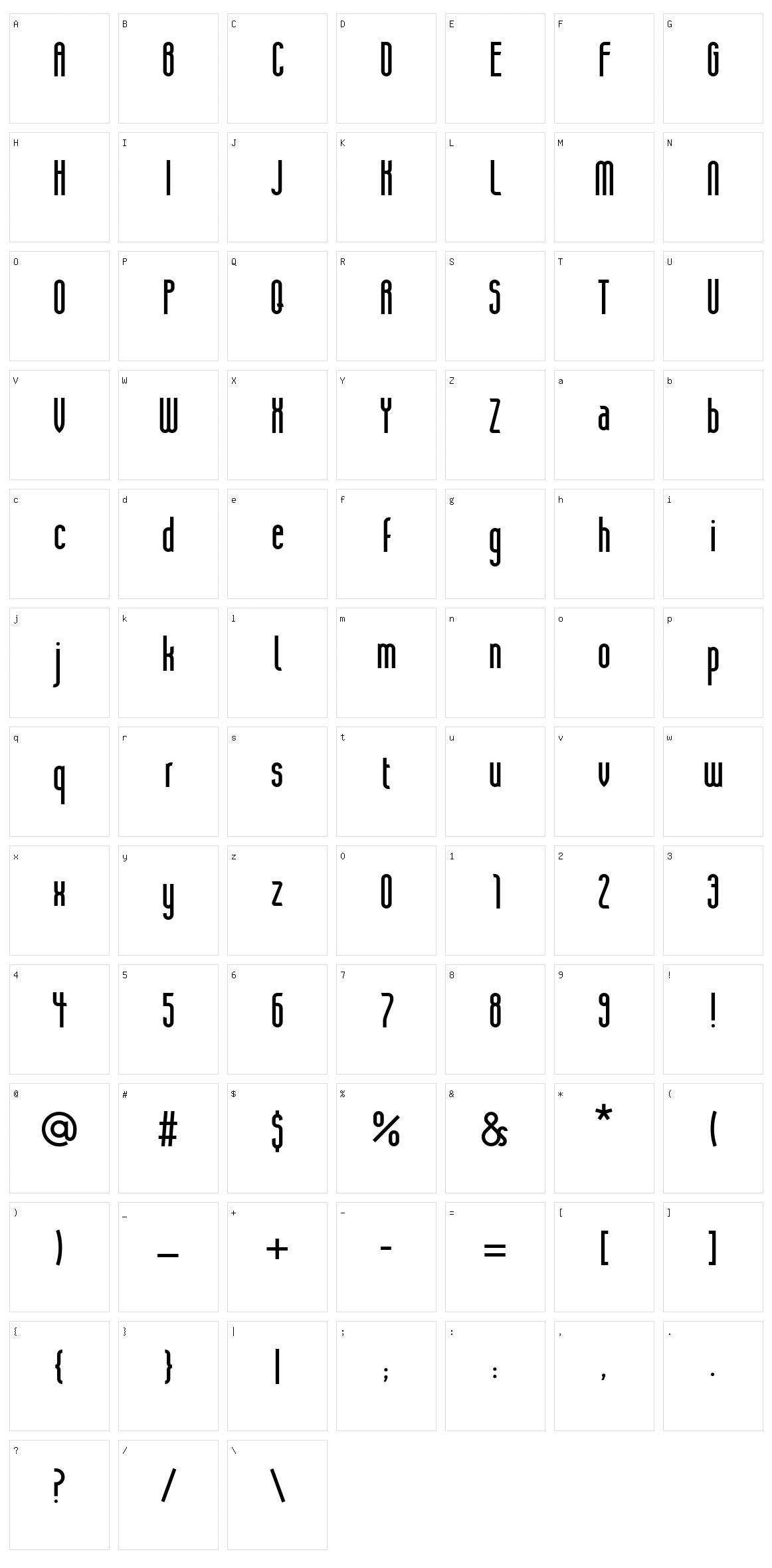
The free font Nubrix Grotesk is carefully designed by Daniel Ensor, showcasing a thoughtful balance of creativity and usability and falls under the Sans serif font style. When you download the ZIP file, it contains only 19.97 KB of font files, making it lightweight and quick to download. Please review the license details below to understand permitted usage and distribution rights. If license information is not available, we recommend using this font for personal projects only or contacting the author directly for commercial usage permissions.